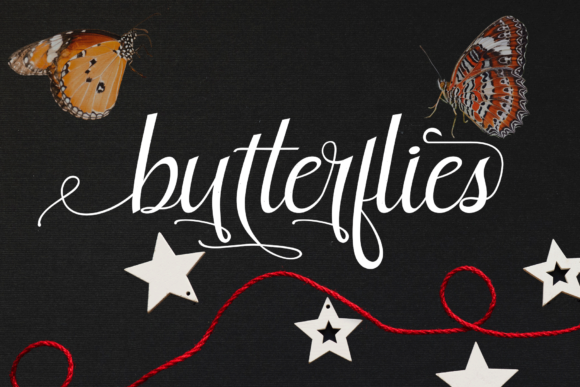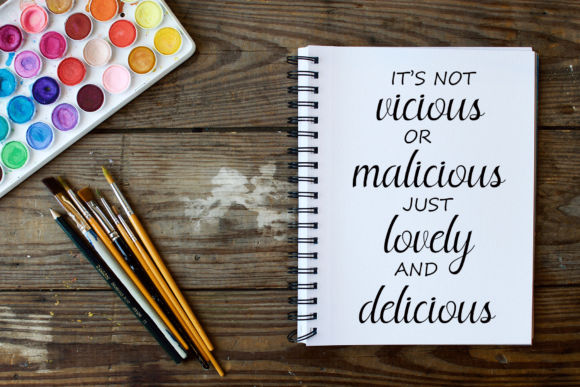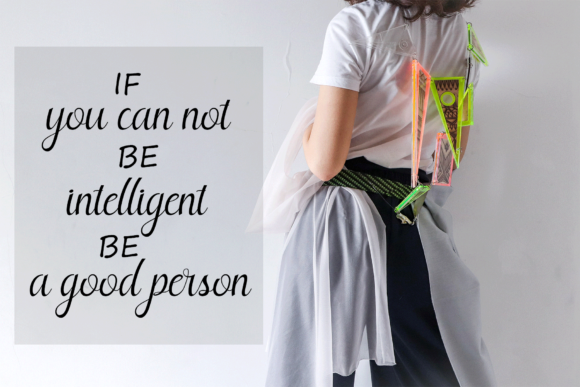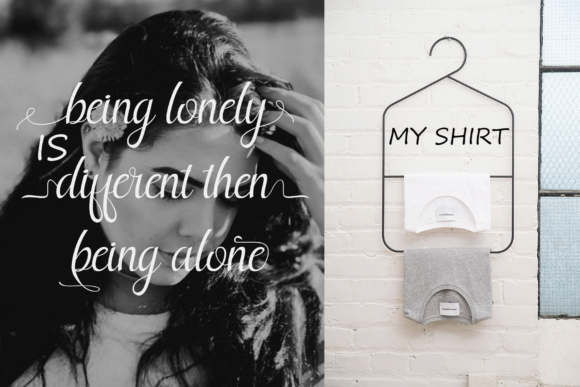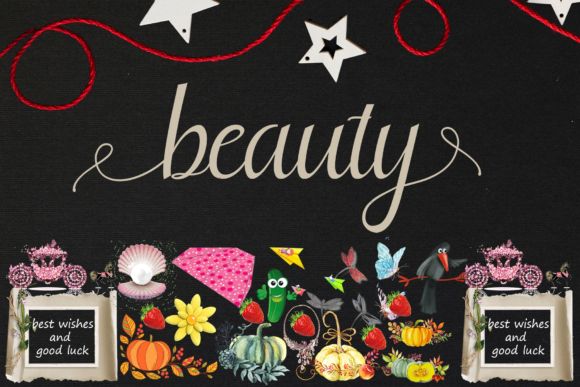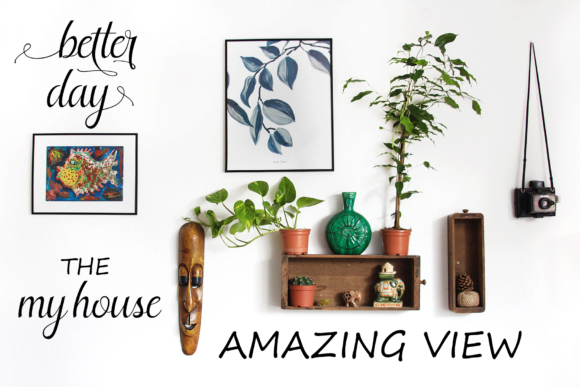
The Perfect Stroke of Creativity: Unveiling the Butterfly Font
Have you ever found yourself scribbling notes in a coffee shop, watching the words flow effortlessly onto the page? That’s the magic of creativity, and it’s precisely what designers look for when crafting unique visual identities. For those moments of inspiration, the Butterfly Font is the perfect tool to bring your ideas to life.
This charming handwritten typeface boasts natural characteristics that make it perfect for invitations, signatures, blogs, social media, business cards, product brands, and much more! The Butterfly Font is a valuable asset for designers, offering a distinctive touch that sets their work apart from the ordinary.
Whether you’re a seasoned pro or just starting out, the Butterfly Font is an essential addition to your design toolkit. Its versatility and charm make it a go-to choice for designers seeking to add a personal touch to their projects.
Key Features of Butterfly Font
- Font Style: The Butterfly Font is a whimsical, handwritten script font, ideal for creating eye-catching headings and titles.
- Unique Characteristics: Features distinctive, flowing connections between letters, giving it a unique and organic feel.
Butterfly Font Review
Overall, I think the Butterfly Font has a certain whimsical charm to it ✨. It’s perfect for projects that need a touch of playfulness and elegance. The font’s delicate lines and intricate details make it a great choice for titles, headings, and other prominent text elements.
- The font’s flexibility in terms of style and size is impressive ✨. It looks great in various contexts, from formal to informal.
- The font’s uniqueness is a major selling point. It stands out from more generic fonts and adds a personal touch to designs.
- The font’s legibility is also noteworthy ✨. It’s easy to read, even at smaller font sizes.
However, there are some limitations to consider ⚠️:
- The font may not be ideal for body text, as it can be quite dense and overwhelming.
- The font’s complexity may make it difficult to pair with other fonts, which can limit its versatility.
Overall, I think the Butterfly Font is a great choice for projects that require a touch of whimsy and sophistication. While it may have some limitations, its unique style and flexibility make it a valuable addition to any designer’s toolkit.
- Use the font for headings and titles.
The Butterfly Font is commonly used for:
- Children’s book illustrations.
- Fashion and beauty branding.
Alternatives to Butterfly Font for Designers
The Butterfly Font is a popular font known for its elegant and whimsical feel. However, designers often look for alternatives to add variety to their designs. Here are a few options:
Great Vibes is a beautiful, handwritten font perfect for creating a sense of nostalgia and romance in designs. It features flowing connections between letters and a mix of elegant and casual elements. When to use: wedding invitations, quotes, and any design that requires a touch of elegance and whimsy. How it compares: Great Vibes has a more elegant feel compared to the Butterfly Font, which is more playful and casual.
Creamy is a beautiful, elegant script font that is perfect for creating a sense of sophistication and luxury in designs. It features smooth connections between letters and a classic feel. When to use: luxury brands, high-end products, and any design that requires a touch of elegance and refinement. How it compares: Creamy is more elegant and refined compared to the Butterfly Font, which is more playful and casual.